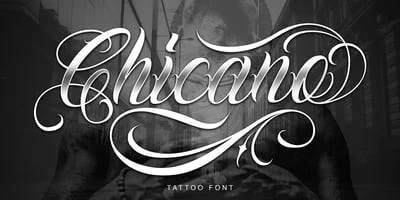
Chicano Font
Chicano Font is perfect for cultural projects including Latino heritage celebrations, authentic Mexican restaurant branding, street art murals, cultural festival posters, traditional tattoo designs, barrio community graphics, Latino pride campaigns, and Southwestern lifestyle magazines. This expressive typeface brings vibrant cultural identity and artistic tradition to any design project.
What makes Chicano Font exciting is its authentic representation of Mexican-American street culture and artistic heritage through bold, decorative letterforms. The distinctive character design features ornate flourishes and traditional calligraphic elements that honor the rich visual traditions of Chicano art while maintaining strong contemporary readability. This font delivers the perfect combination of cultural pride and artistic expression that celebrates Latino identity and community strength.
The Chicano Font family typically includes bold and decorative weights with traditional styling, complete uppercase and lowercase alphabets, numerals, punctuation, and cultural symbols. The design often features ornamental details and calligraphic characteristics that enhance the authentic Latino aesthetic. Some versions include additional decorative elements, traditional flourishes, and specialized characters perfect for cultural and artistic applications.
Whether you're designing for Latino businesses, cultural organizations, or community celebrations, Chicano Font delivers the authentic cultural expression that honors Mexican-American heritage. Its powerful presence makes it ideal for memorable murals and brand identities that need to convey cultural pride and artistic tradition. The font's cultural heritage ensures it communicates authenticity and community spirit, making it perfect for any project requiring the respected aesthetic of Chicano artistry and Latino cultural celebration.